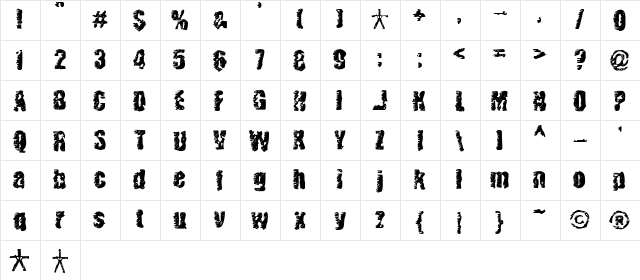
BN BenWitch Project Regular
Design Context for BN BenWitch Project Typeface
BN BenWitch Project is a composed and adaptable typeface that performs quietly and consistently across a wide range of design contexts.
Pro Tip: Use BN BenWitch Project in both headline and body roles to test its range before committing to a single application.